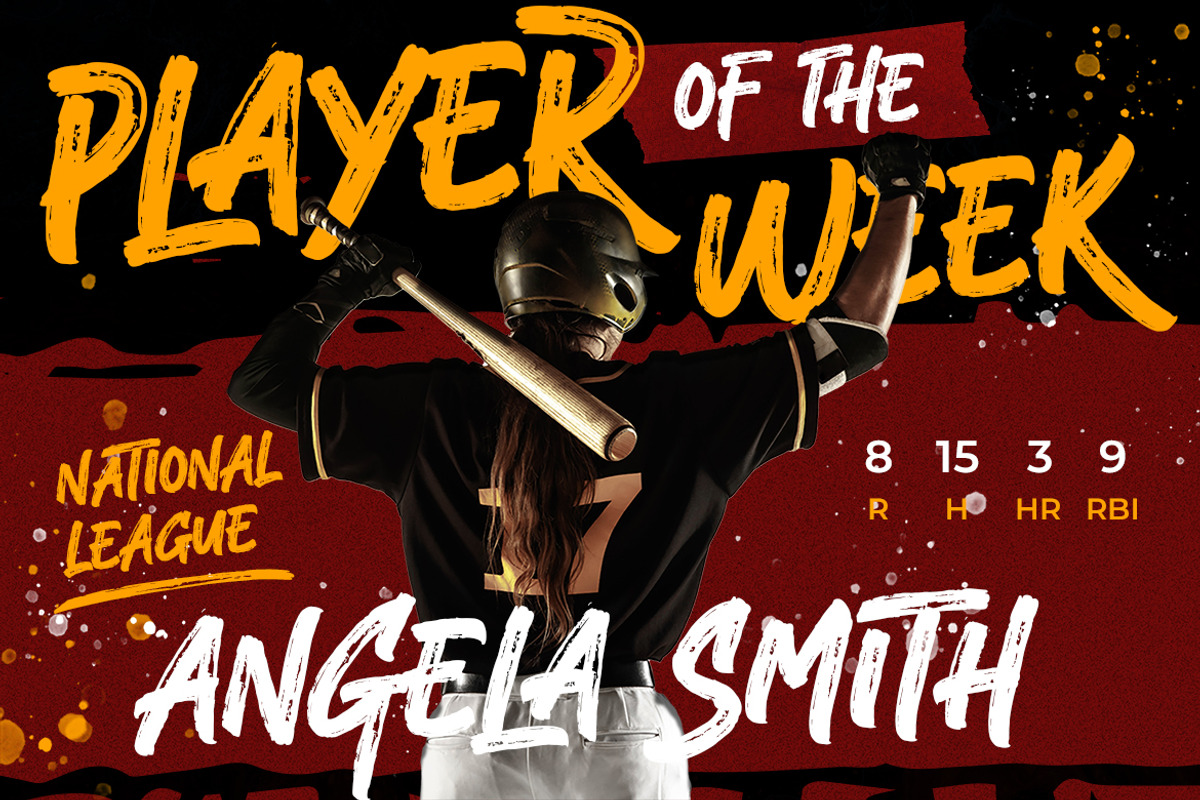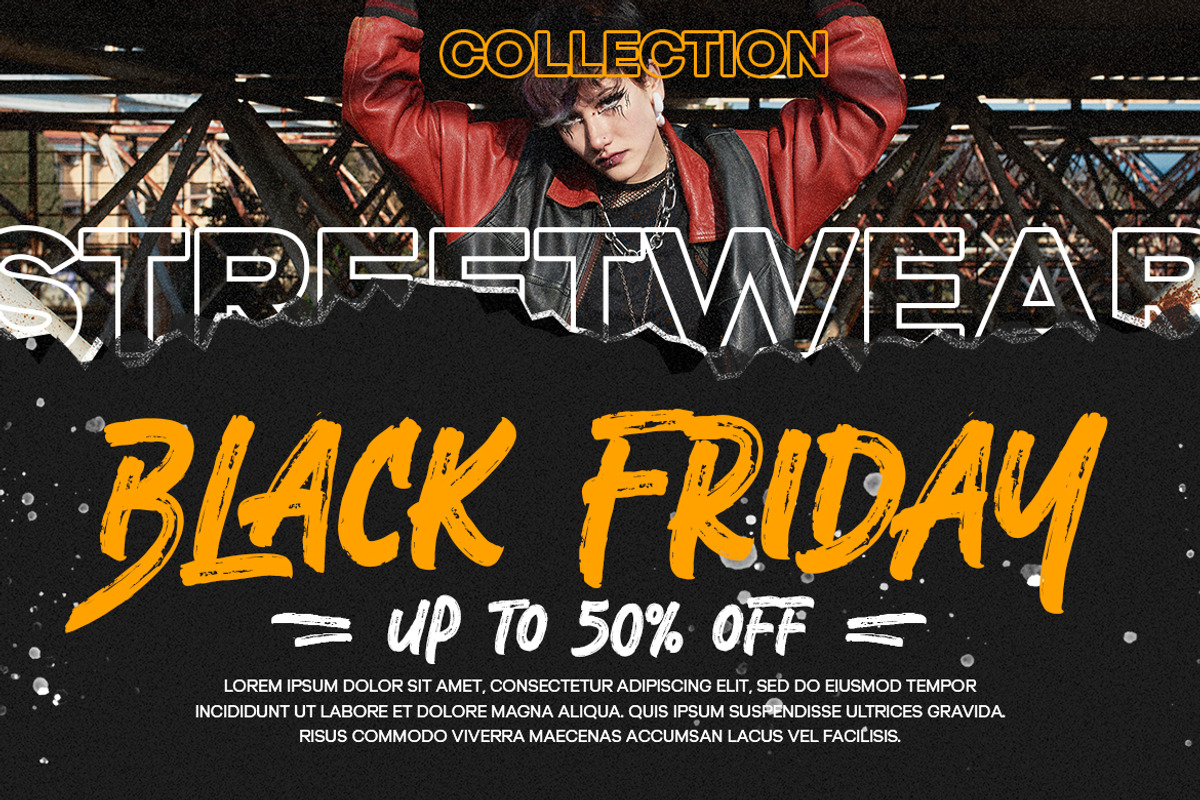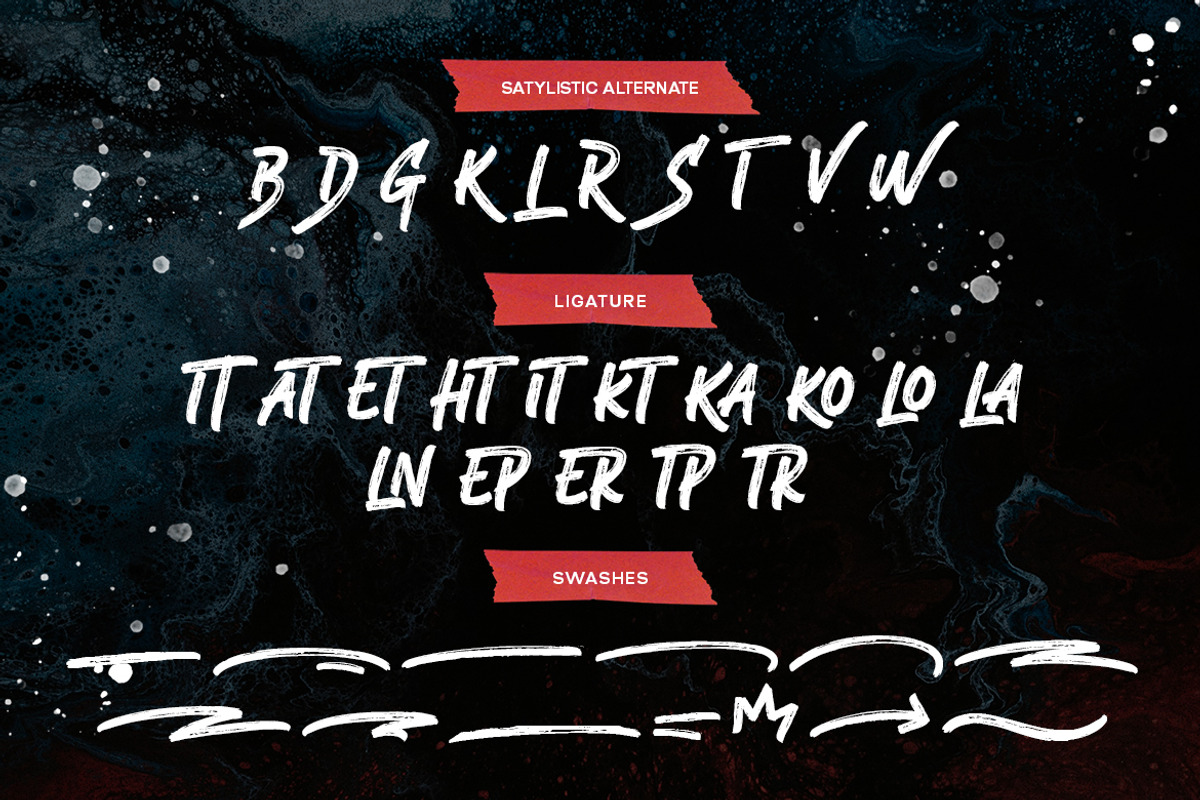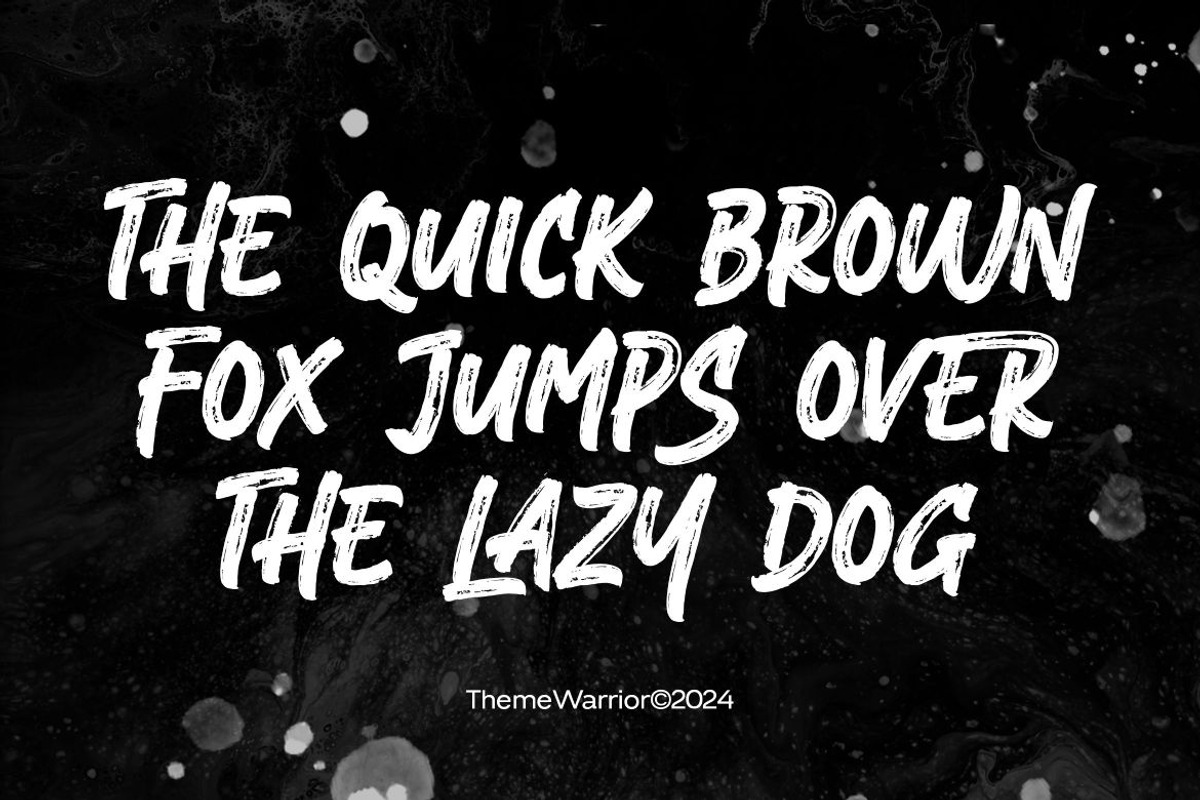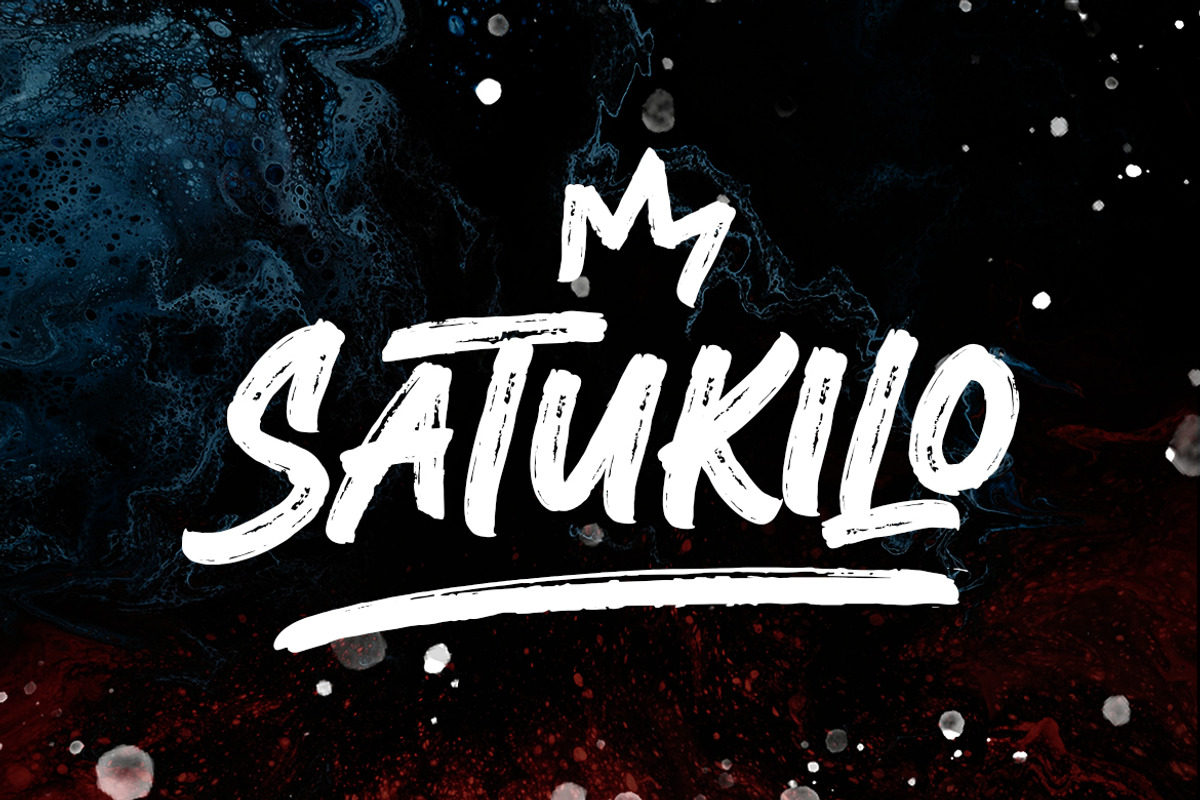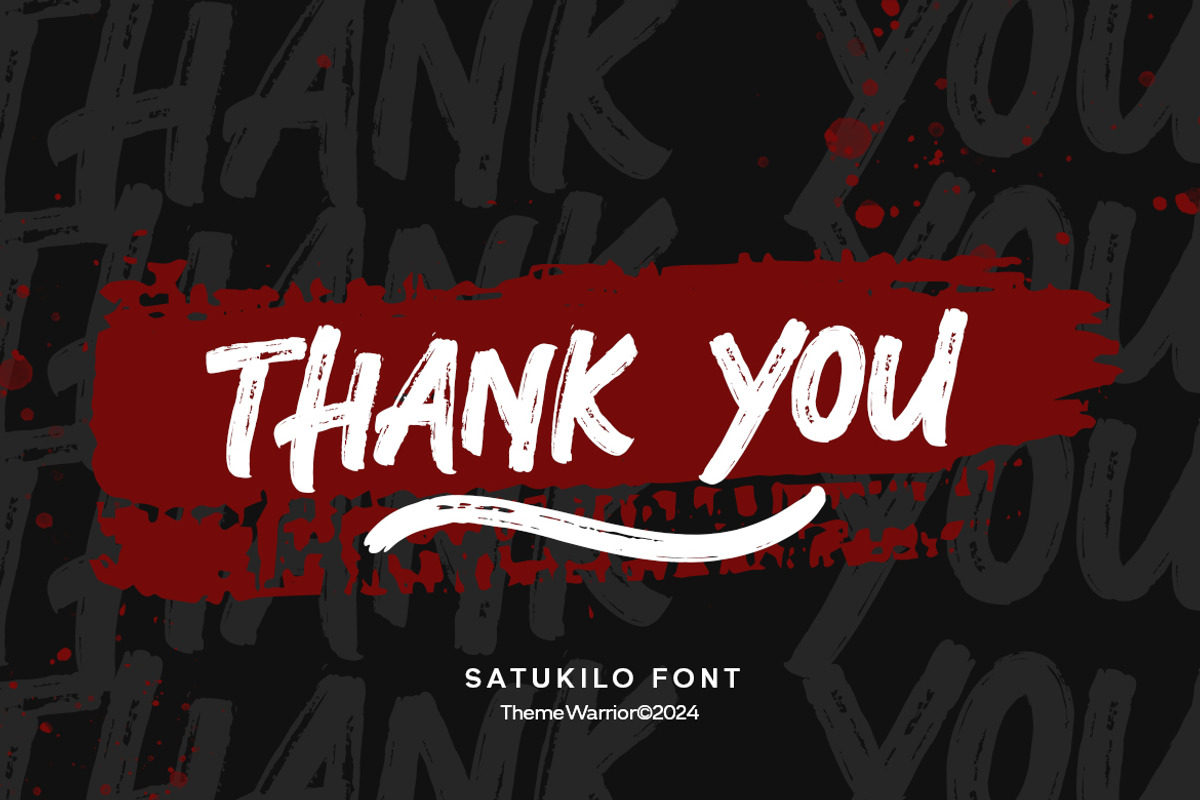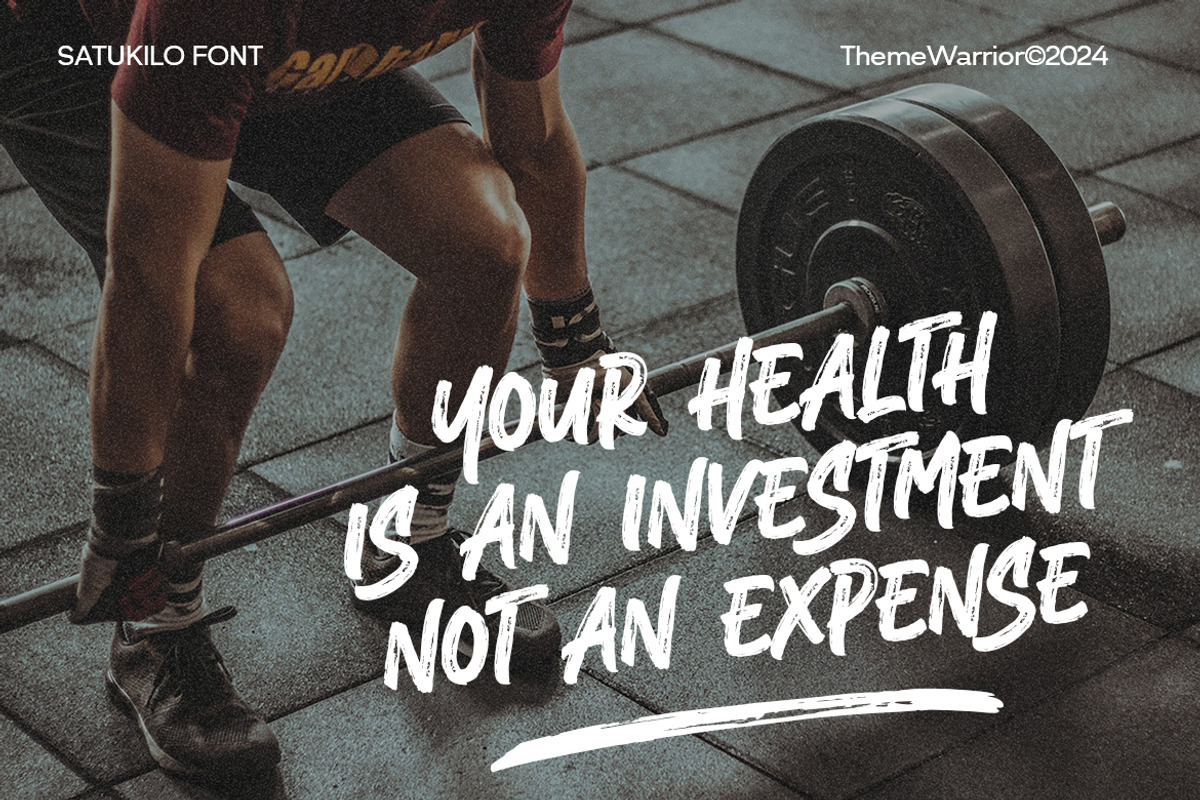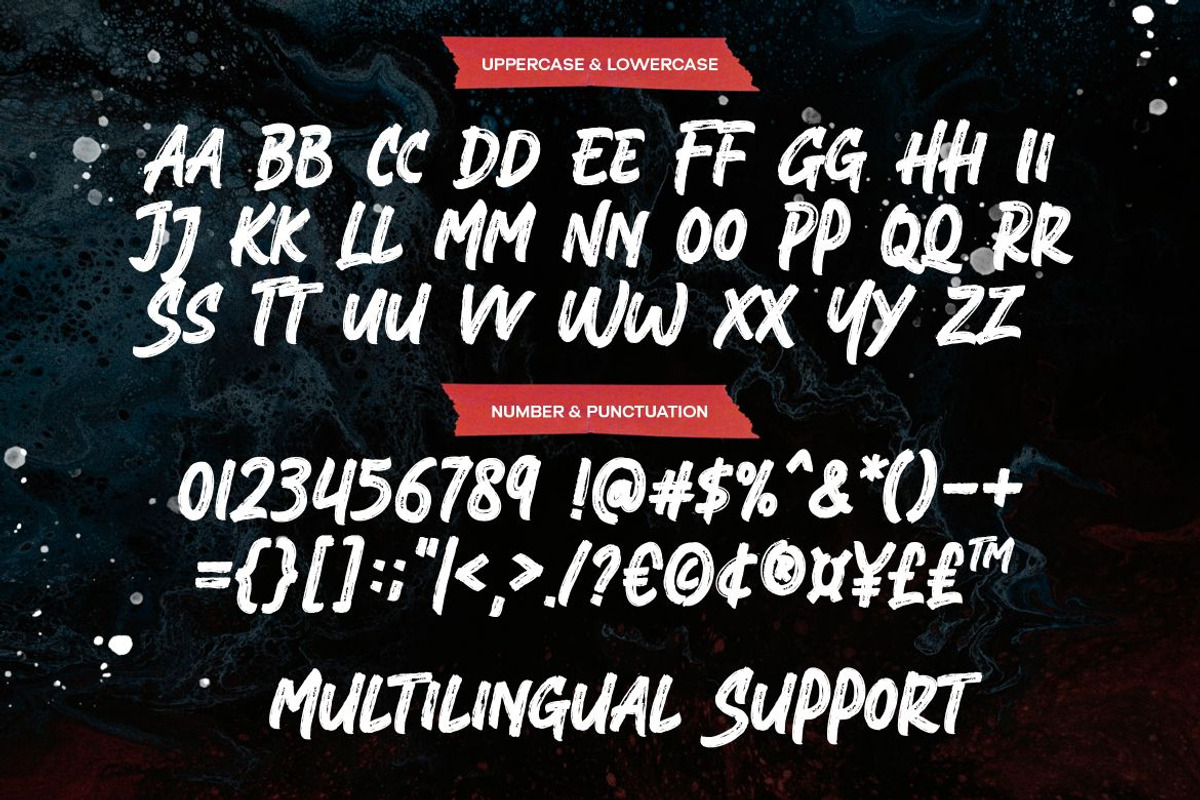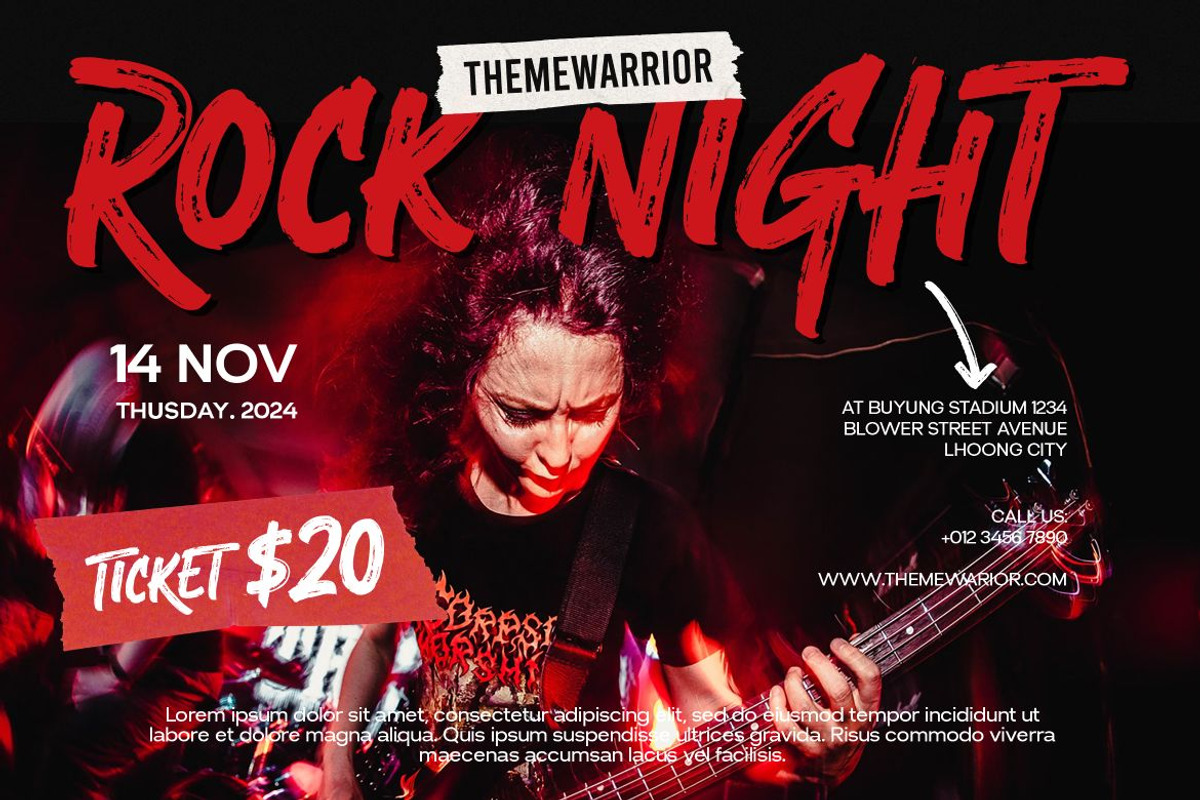
SatuKilo Brush Font
SatuKilo is a bold handwritten brush font that’s full of energy and personality. Perfect for posters, branding, quotes, and anything that needs a fun, creative vibe. With its natural brush strokes and extra swashes, SatuKilo adds a cool, handmade feel to your designs. Whether you’re going for edgy or playful, this font has you covered!